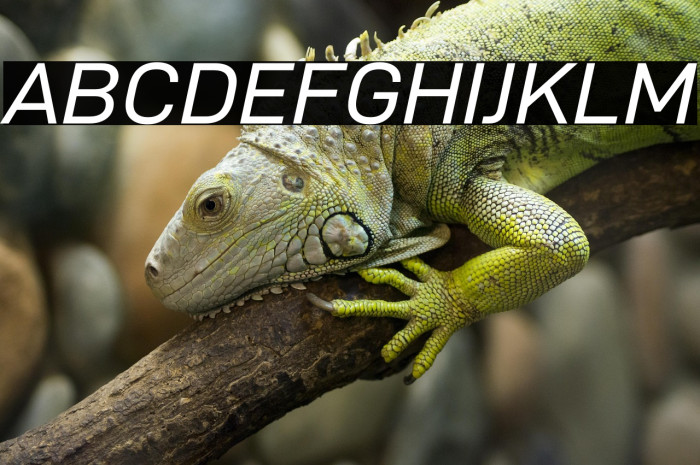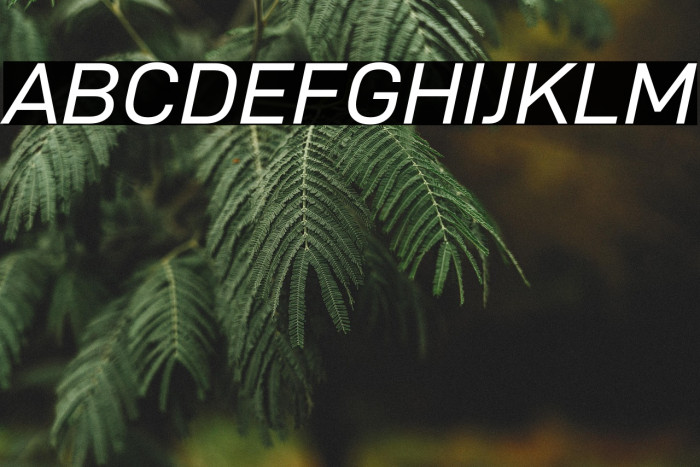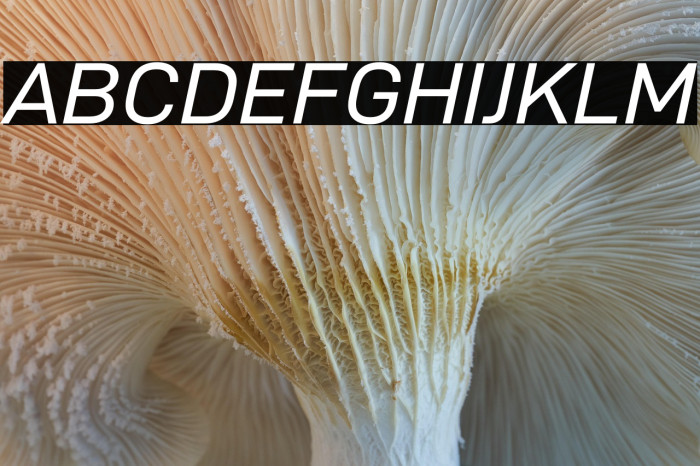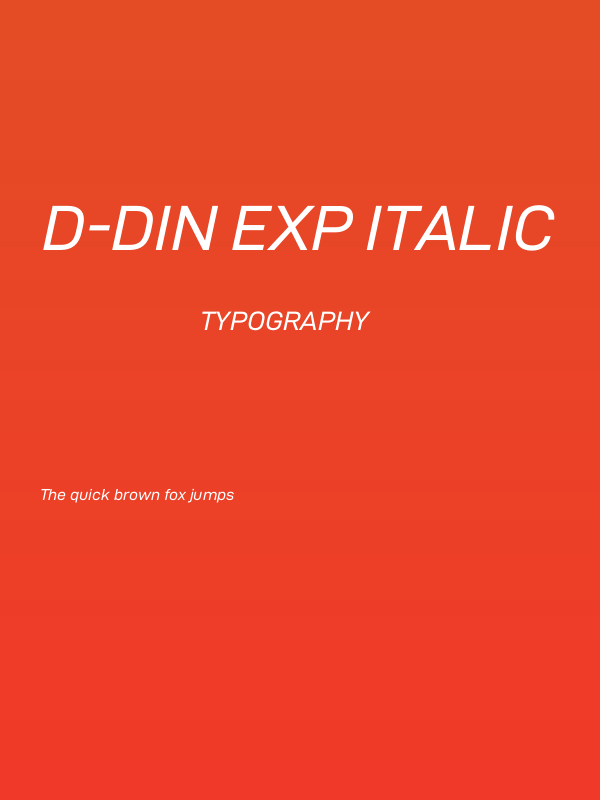
D-DIN Exp Italic Font
D-DIN Exp Italic Description
This font features a clean and modern design with a slight italic slant, giving it a dynamic and forward-moving appearance. The characters are well-proportioned with a consistent stroke width, contributing to its legibility and professional look. The uppercase and lowercase letters maintain a uniform style, while the numerals are clear and distinct. Special characters are included, enhancing its versatility for various applications. The overall aesthetic is sleek and contemporary, suitable for both digital and print media.
| Proposed Projects | Ideal for branding, advertising, web design, and editorial layouts where a modern and professional look is desired. |